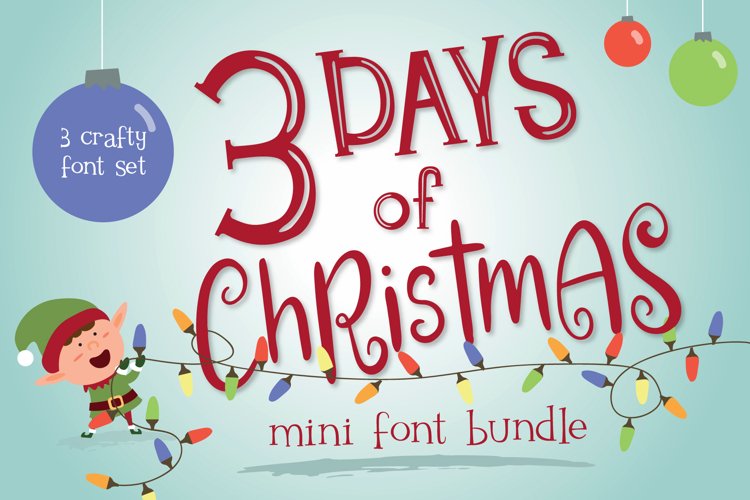
Christmas Themed Mini Font Bundle
Individual Fonts are:
Christmas Workshop https://fontbundles.net/tuneuwin/128340-christmas-workshop-font/rel=ShQKQU
Rudolph's Holiday Party https://fontbundles.net/tuneuwin/123791-rudolph-s-holiday-party-font/rel=ShQKQU
Christmas Puppies https://fontbundles.net/tuneuwin/153451-christmas-puppies-font-pair/rel=ShQKQU